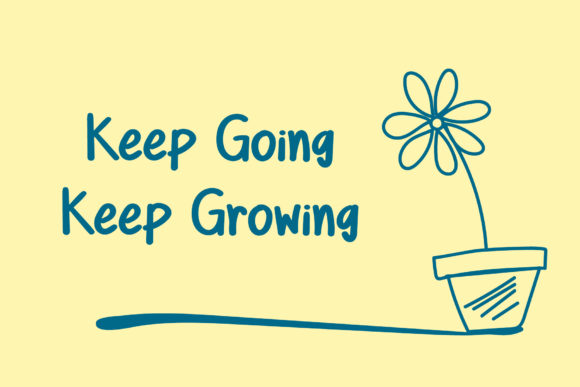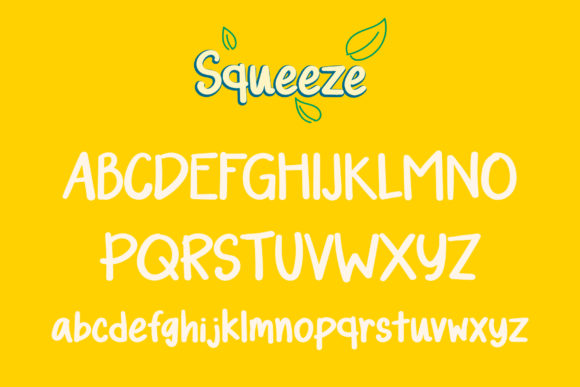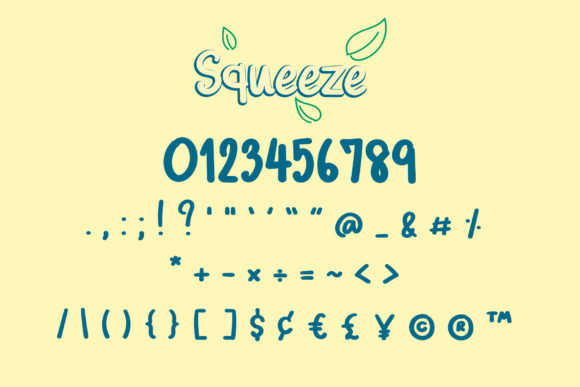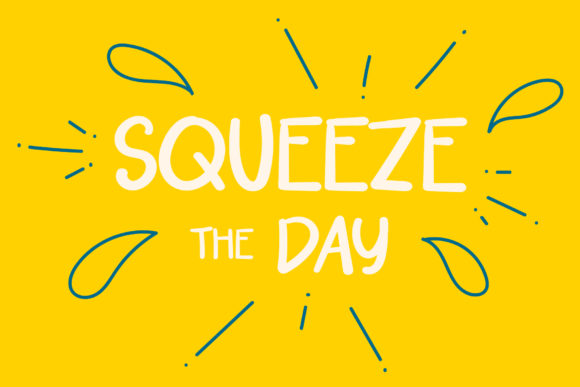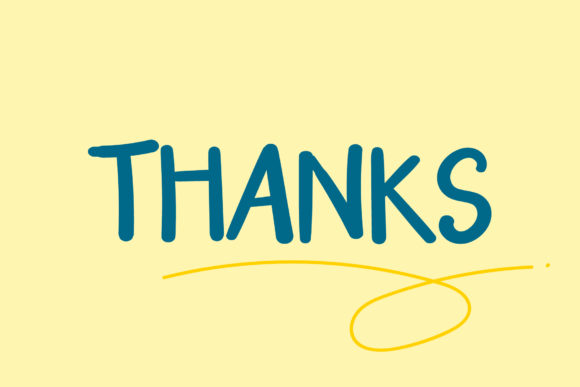
Squeeze Font
About Squeeze Font
Squeeze is a whimsical handwritten font carefully created with a touch of elegance. It features an incredibly classic style, while still keeping a friendly feel. Squeeze is the perfect font for making original and outstanding designs.